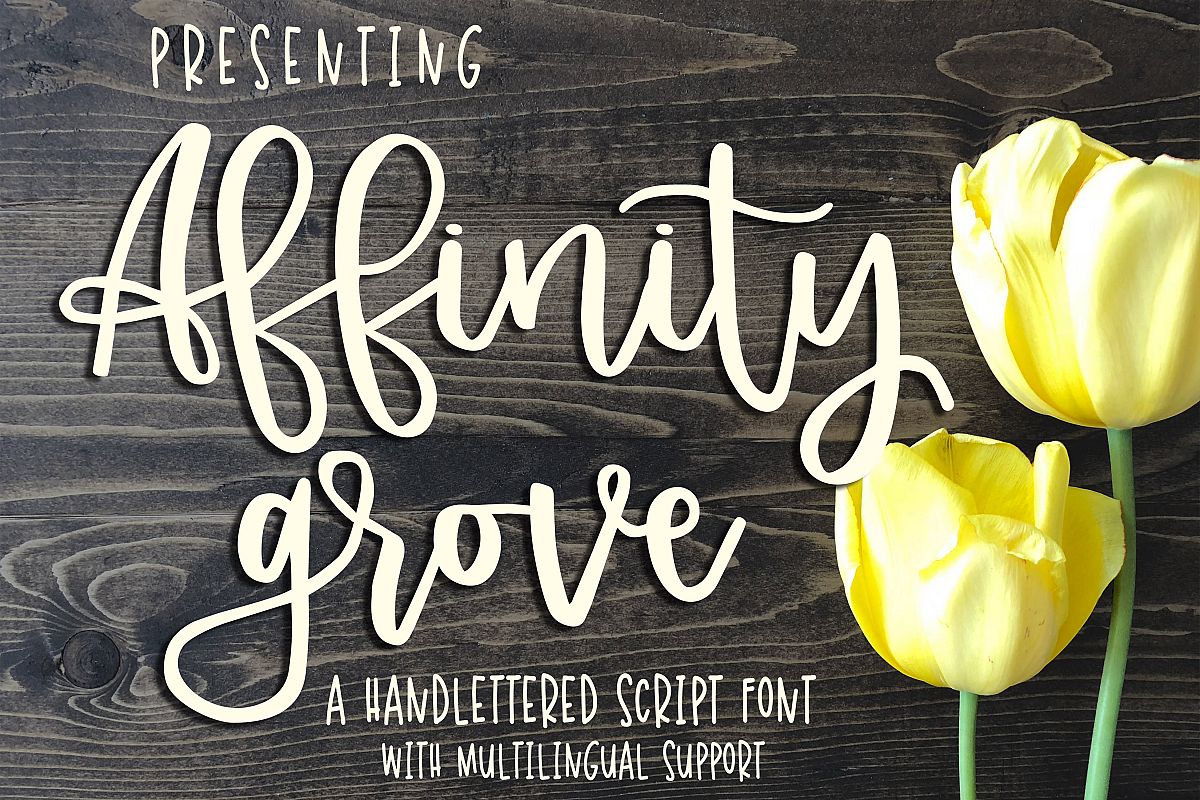
Affinity Grove
Affinity Grove Script contains a variety of ligatures, stylistic alternates, end and initial characters to easily add accents to your designs. Simply access them through the Glyphs palettes in programs like Illustrator or InDesign. If you don't have these programs, you'll still have access to all of the standard and international characters.
Includes over 50 ligatures! Capital letters connect seamlessly with lowercase and most other upper case letters.
Affinity Grove Script contains multilingual support with accented characters for international (Western European) users. If you're unsure, please check in the sample box if your languages standard characters are available.